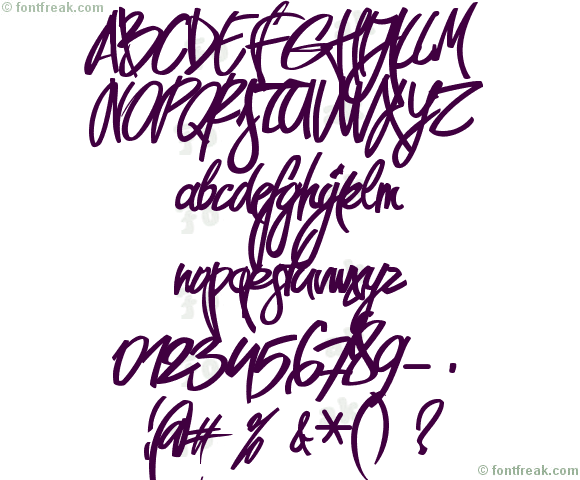
Pirmokas
Pirmokas is an elegant script font designed by Rokas Cicenas, classified as a decorative typeface. This font stands out with its fluid, cursive style that evokes a sense of artistic flair. The strokes exhibit a medium weight with subtle variations in contrast, giving it a dynamic yet approachable aesthetic. The letters are well-spaced, allowing for legibility while maintaining a sophisticated appearance. Decorative elements are integrated seamlessly, with graceful curves and swirls that enhance its charm.
The Pirmokas font is ideal for a variety of creative applications. It's particularly well-suited for wedding invitations, where its romantic style can elevate the overall design. Additionally, it can be effectively used in movie posters, adding a dramatic touch that captures attention. Restaurant menus also benefit from its refined look, making dishes feel more enticing. Moreover, Pirmokas serves as an excellent choice for branding projects, helping small business owners create a unique identity that resonates with their audience. Content creators looking to add a personal touch to their graphics will find this font equally appealing.
What sets the Pirmokas font apart is its ability to blend functionality with artistic expression. Its delightful curves and well-balanced design make it not only visually appealing but also versatile enough for multiple uses. Whether you’re crafting a heartfelt invitation or designing a striking poster, Pirmokas can seamlessly enhance your project’s visual narrative.